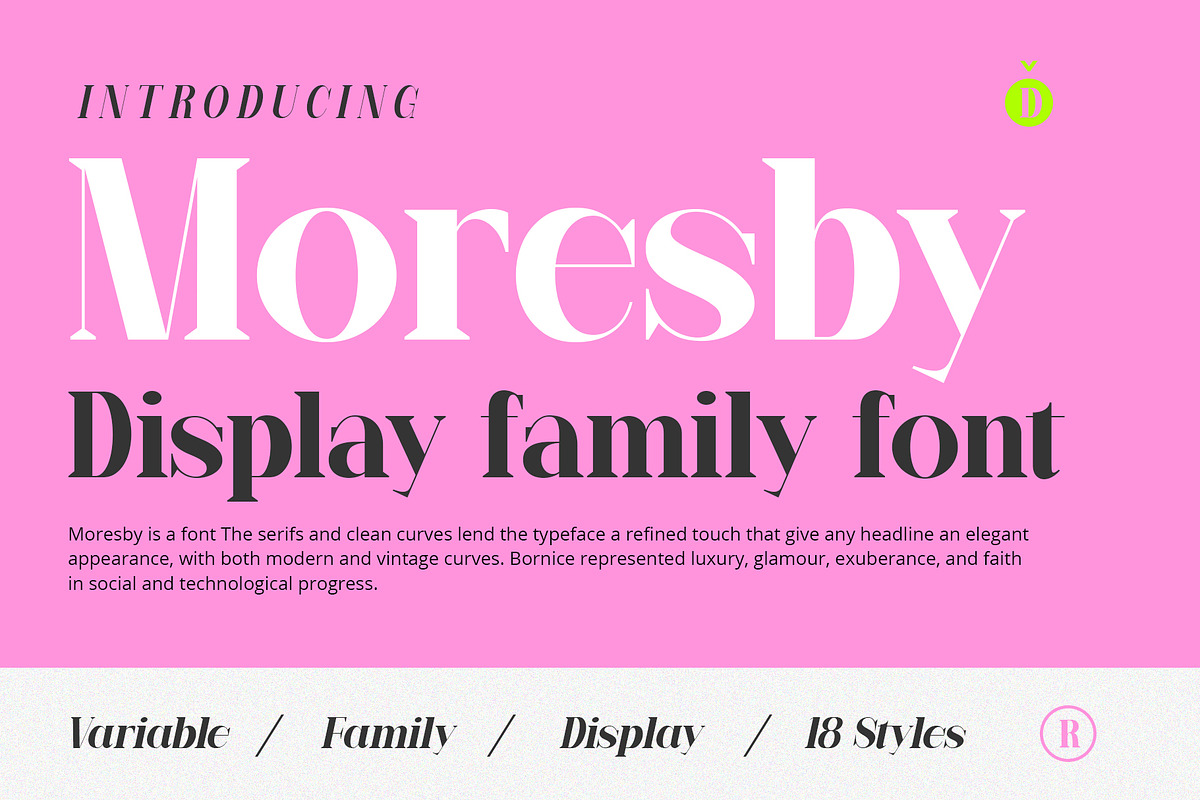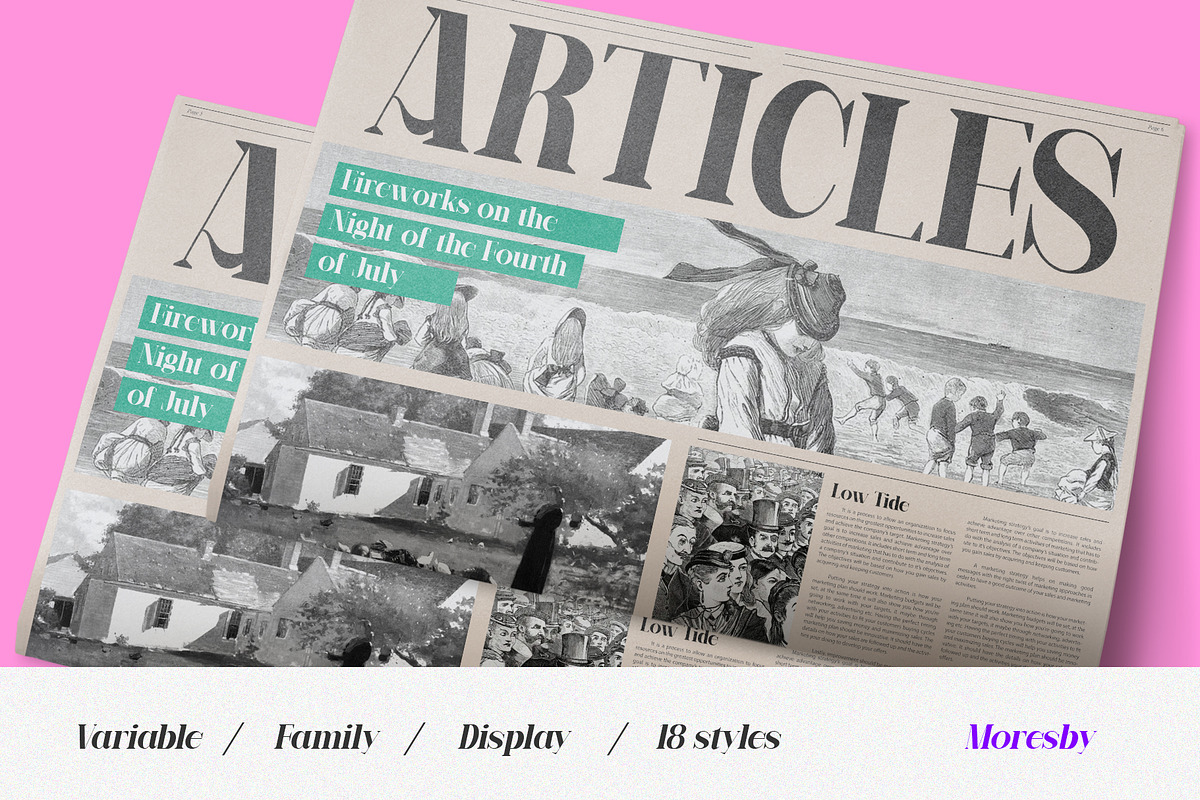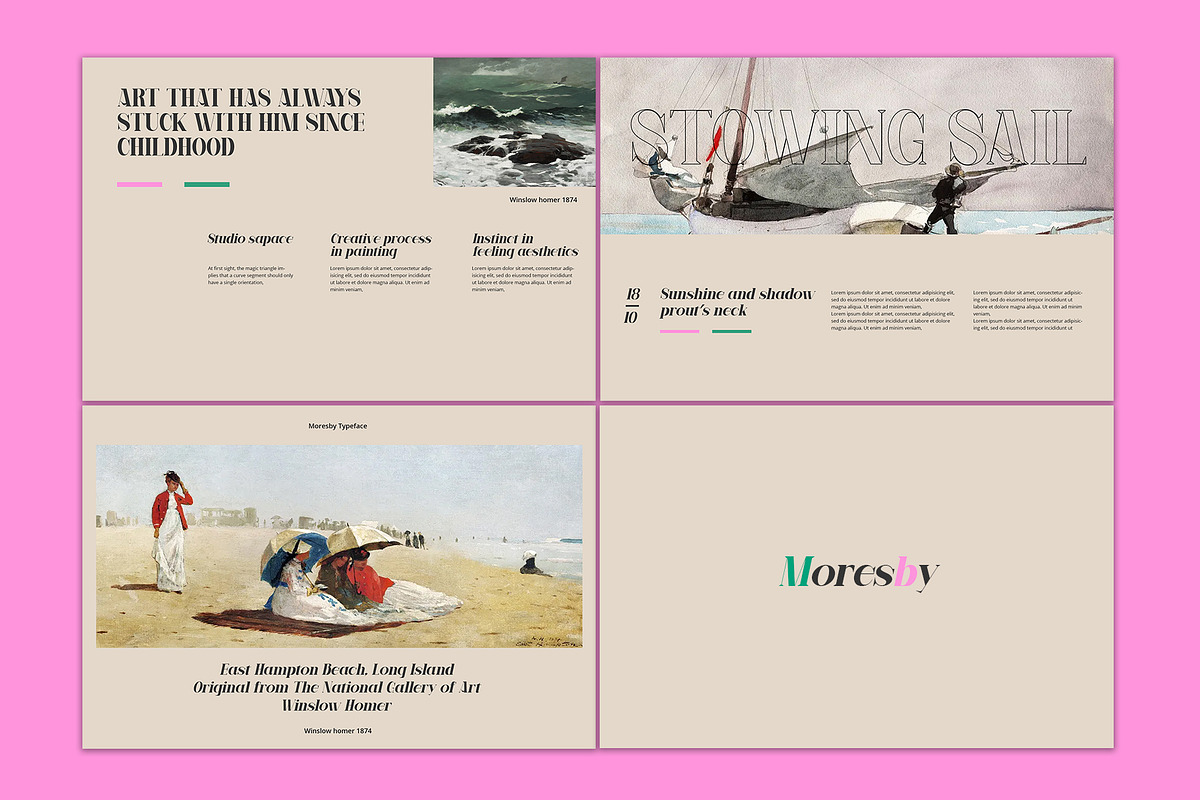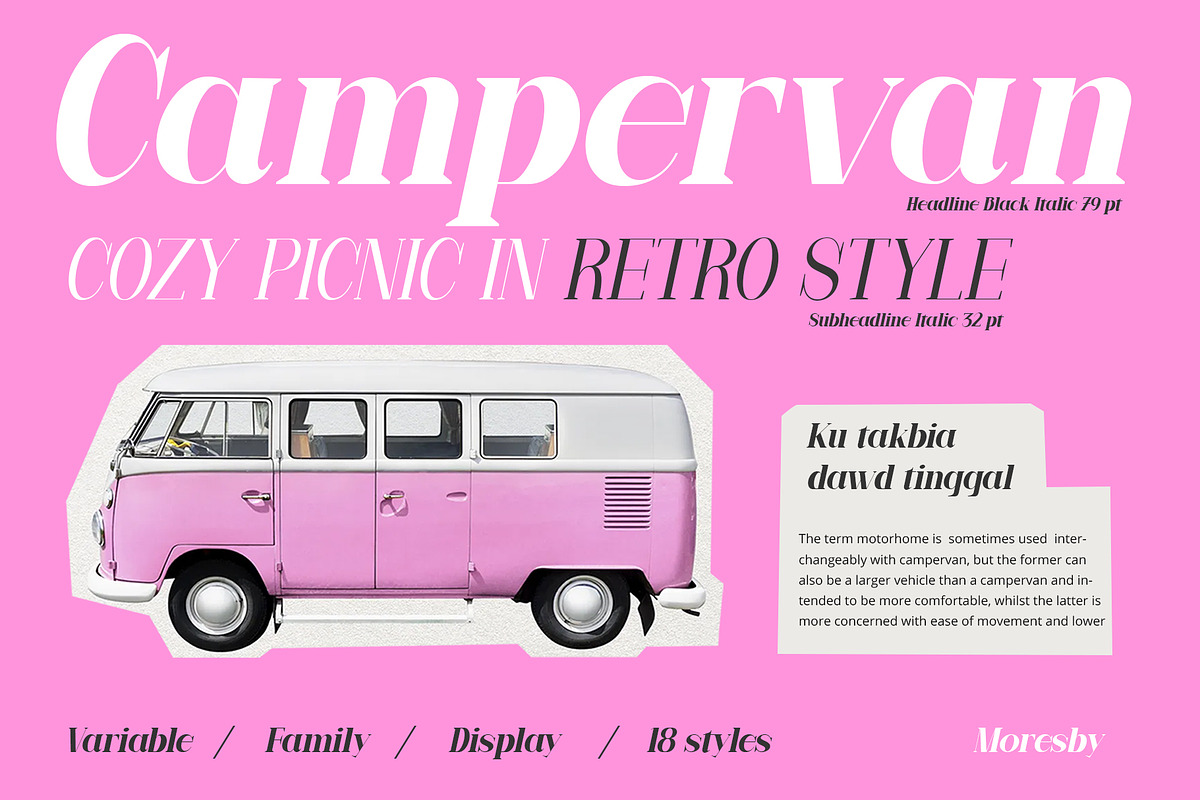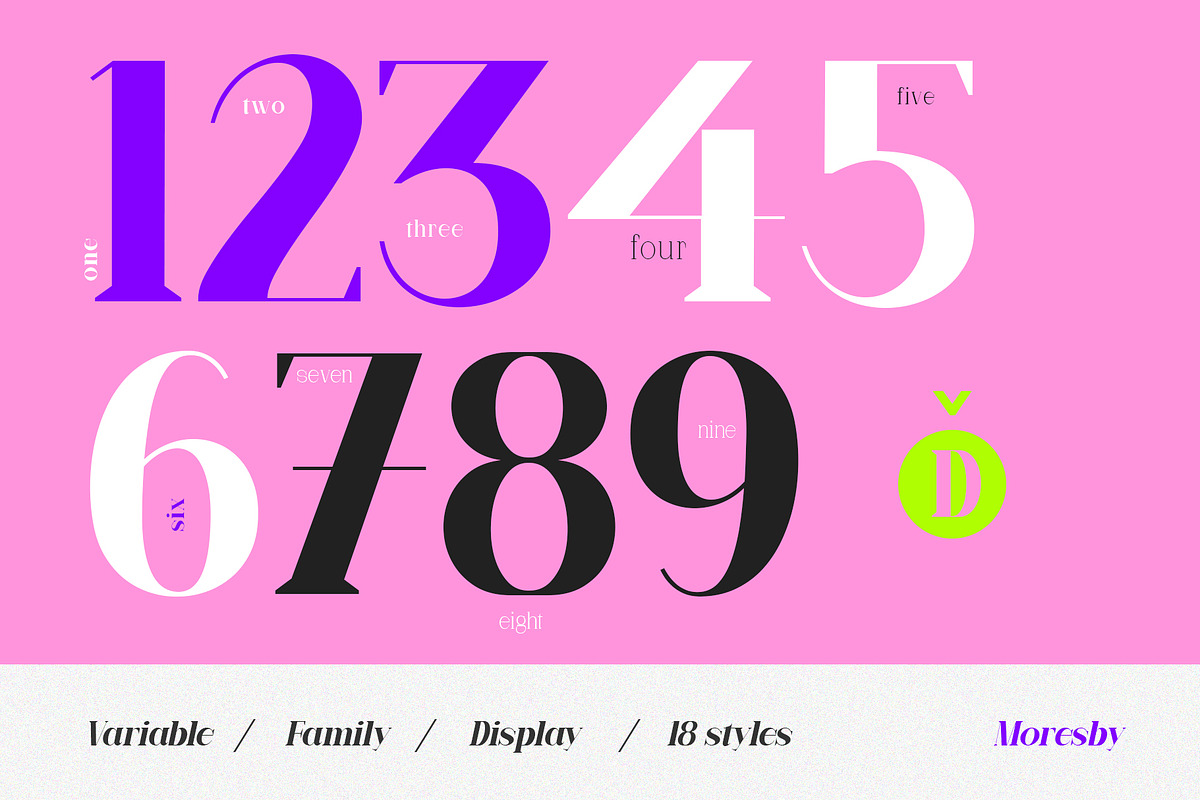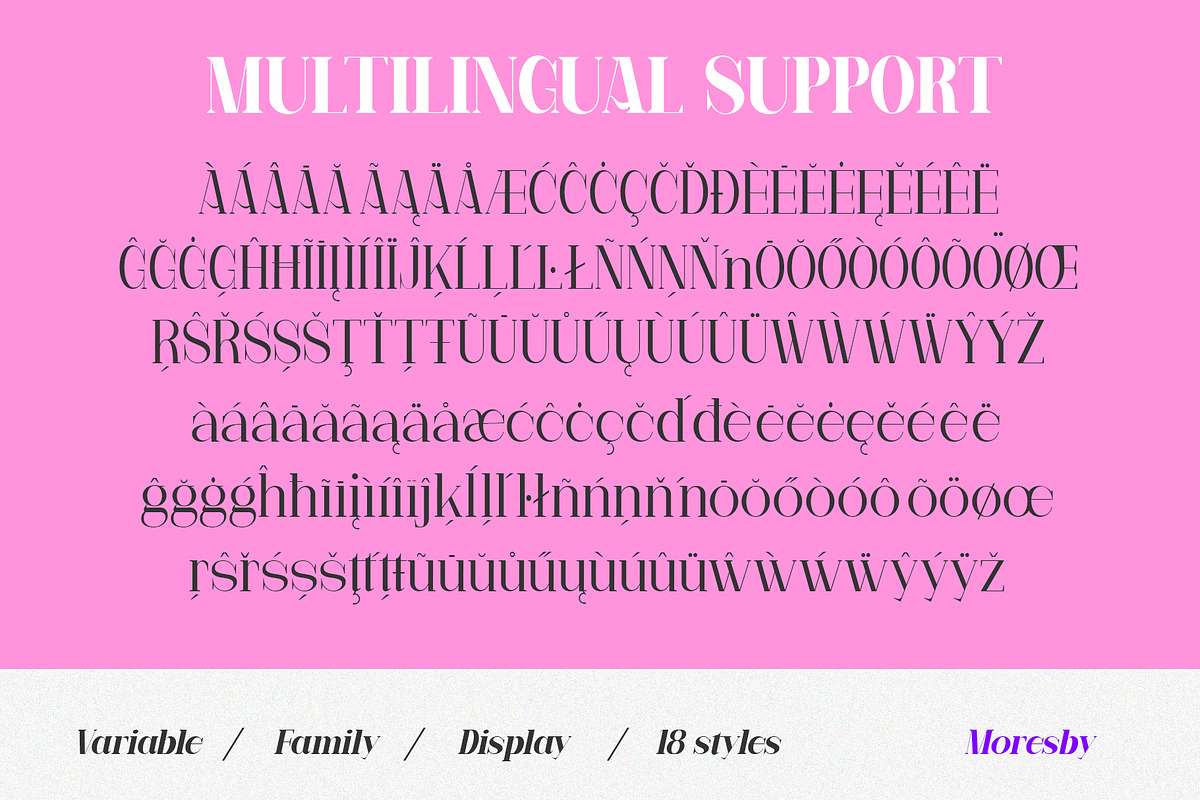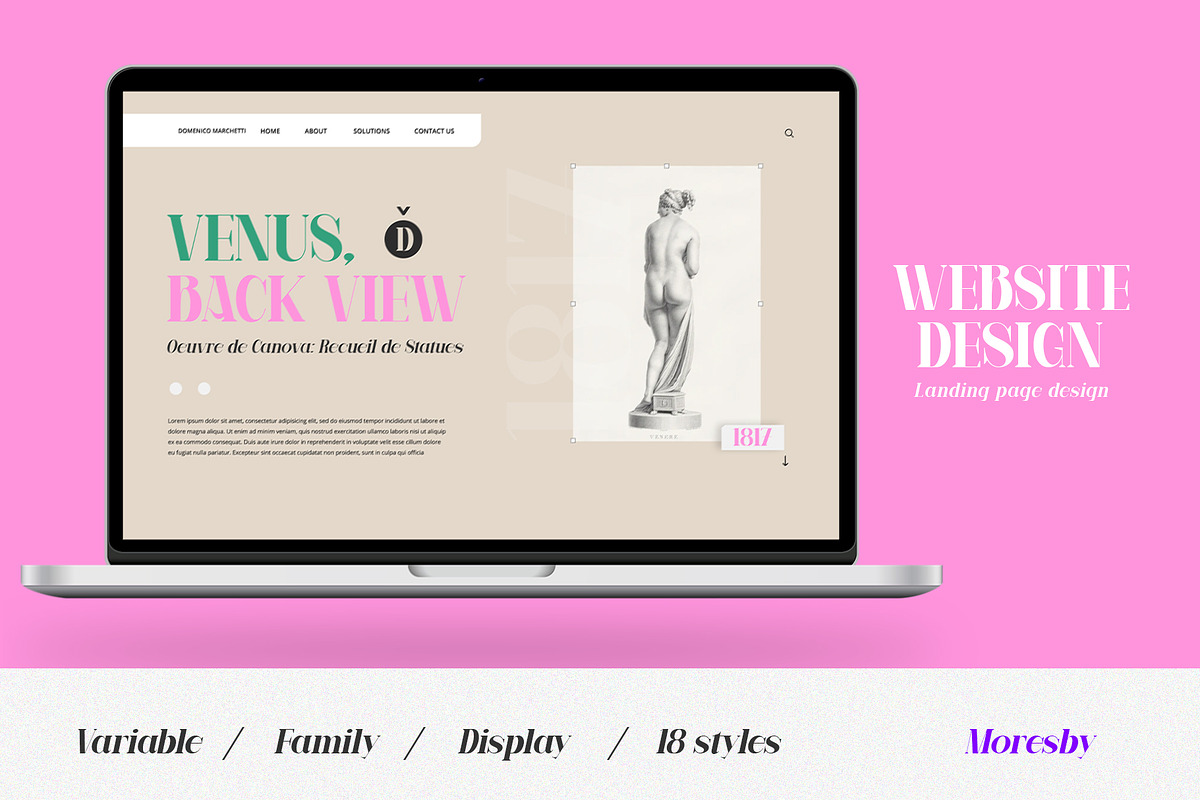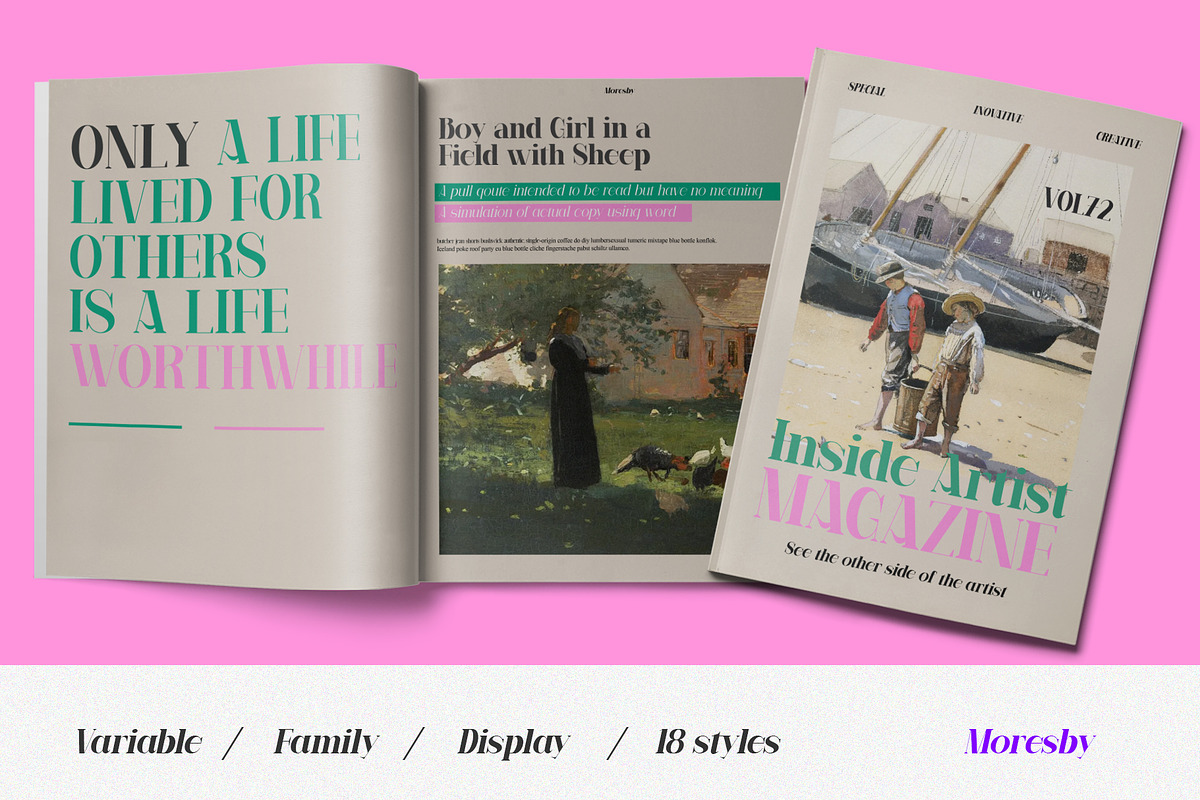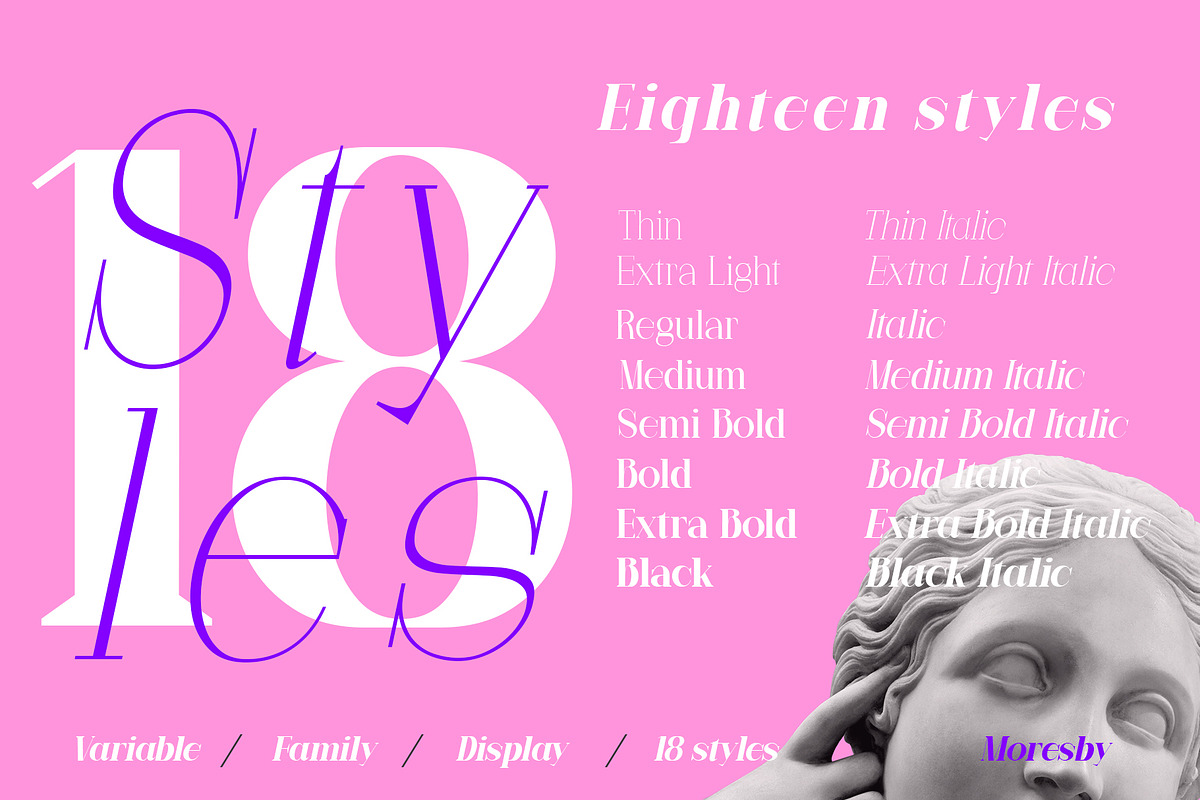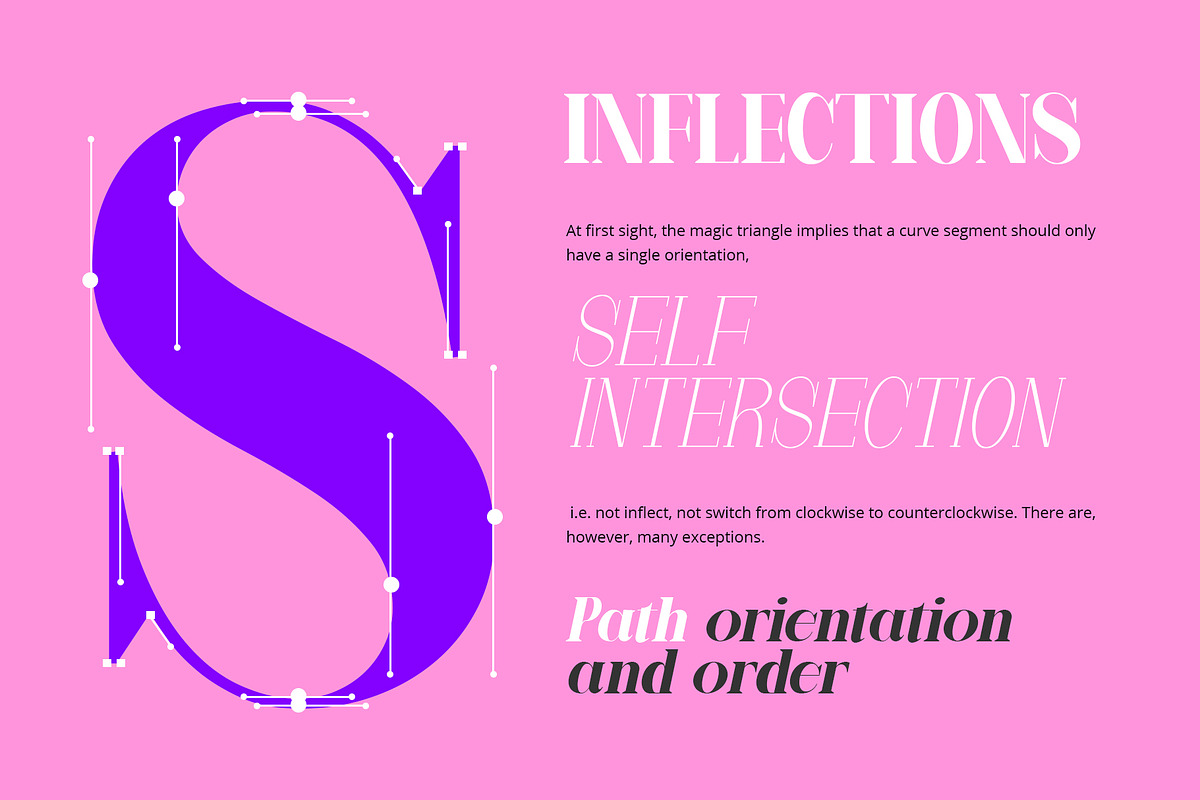
Moresby
Moresby Typeface is a font The serifs display and clean curves lend the typeface a refined touch that give any headline an elegant appearance, with both modern and vintage curves. Moresby Typeface represented luxury, glamour, exuberance, and faith in social and technological progress. the pack also includes eighteen different which are Thin, Thin Italic, Extra Light, Extra Light Italic, Regular, Italic, Medium, Medium Italic, Semi Bold, Semi Bold Italic, Bold, Bold Italic, Extra bold, Extra Bold Italic Black, Black Italic and support multilingual.
It works perfectly for creative project such as logo, T-shirt / apparel, badge, invitation, packaging,headline, poster, magazine, greeting card, and wedding invitation. You can access the open type features and multilingual on mostly Adobe programs, such as Adobe Indesign, Adobe Illustrator, Adobe photoshop. etc.